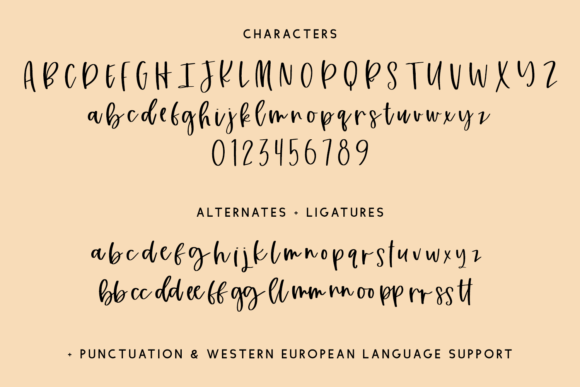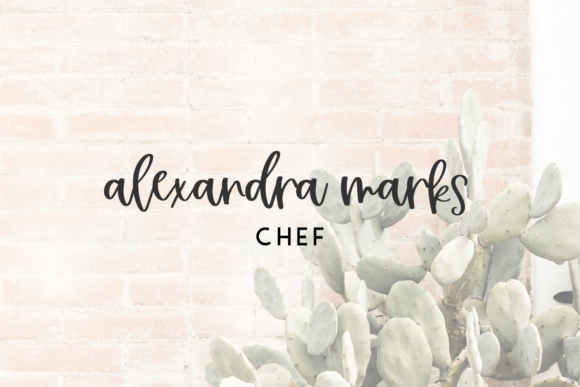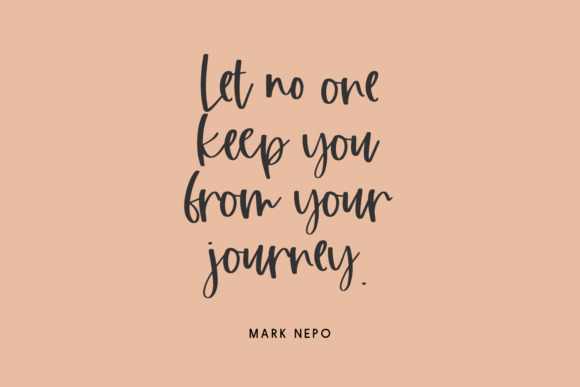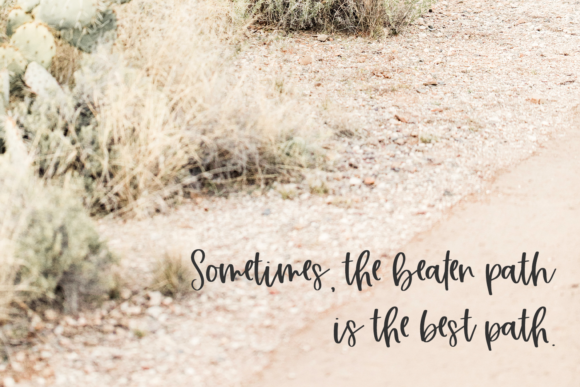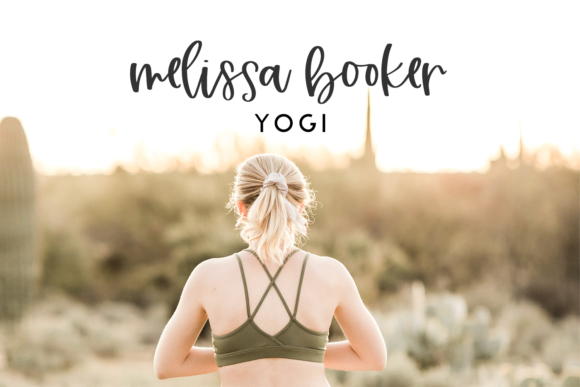
About Honey Punch Script Font
Honey Punch Script is a hand-lettered modern calligraphy script with a lot of personalities. Honey Punch features a selection of alternate characters & ligatures to customize your text, as well as a bouncy baseline.
Honey Punch Script is best for:
– logos + branding
– crafting with your Cricut or Silhouette machine, as it features super smooth lines for an easy cut
– website design + website accents – think travel blogs, fashion blogs, & more
– clean print design, like magazines + flyers
– header elements that need a handwritten touch
– quote graphics for social media